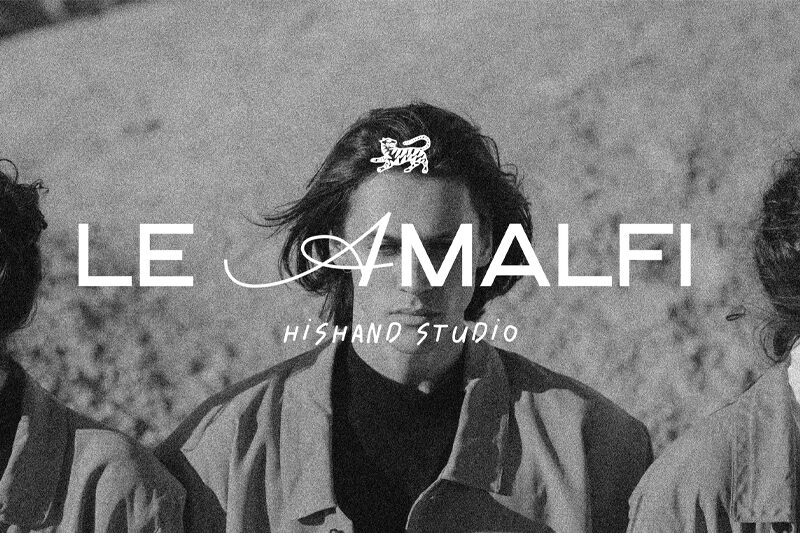
Le Amalfi font by Hishand Studio is a modern sans serif typeface inspired by industrial and geometric shapes. Each character features flat consistent ends, notably sharp angle transitions, and expanded width that overall results in maximum legibility. This minimalist font is ripe for most contemporary applications such as branding and advertising.
Aesthetically pleasing every time it’s used on posters, magazine covers, brochures, or flyers. The precise lines also form an ideal appearance on digital screens like sites or apps. Make the headlines of your newspaper stand out using this free font from the majority of headings you encounter each day. Enjoy it!
LE AMALFI
Hishand Studio